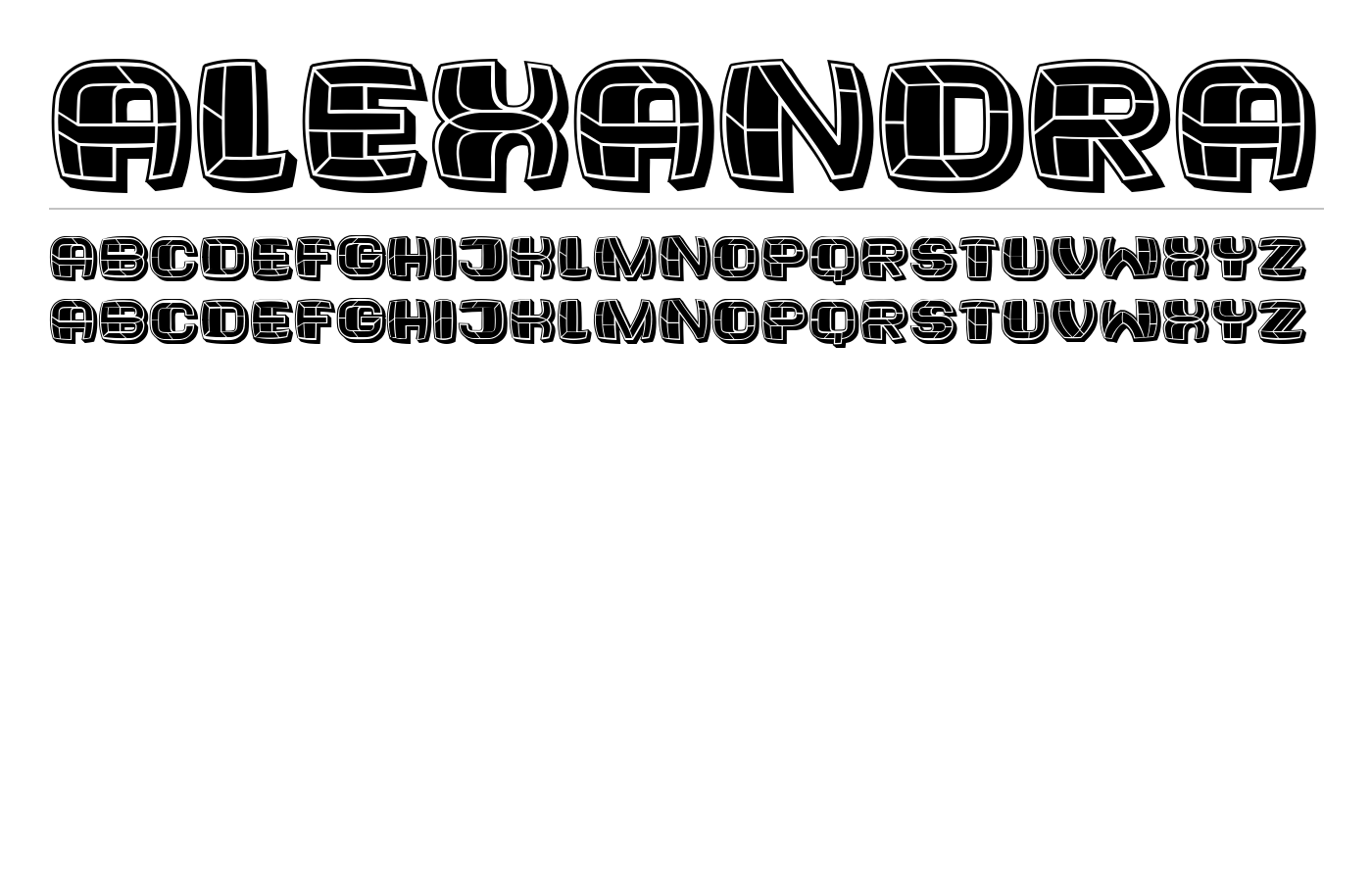
Alexandra is a bold, decorative sans serif font with a playful, geometric style highlighted by segmented shapes within each letter that create a sense of depth and texture. Its heavy weight and compact spacing make it ideal for eye-catching headlines, logos, or display use where a fun and dynamic personality is desired. This font works well for creative branding and posters that want to convey a modern, vibrant feel with a touch of whimsy.
Alexandra Font
About Alexandra Font